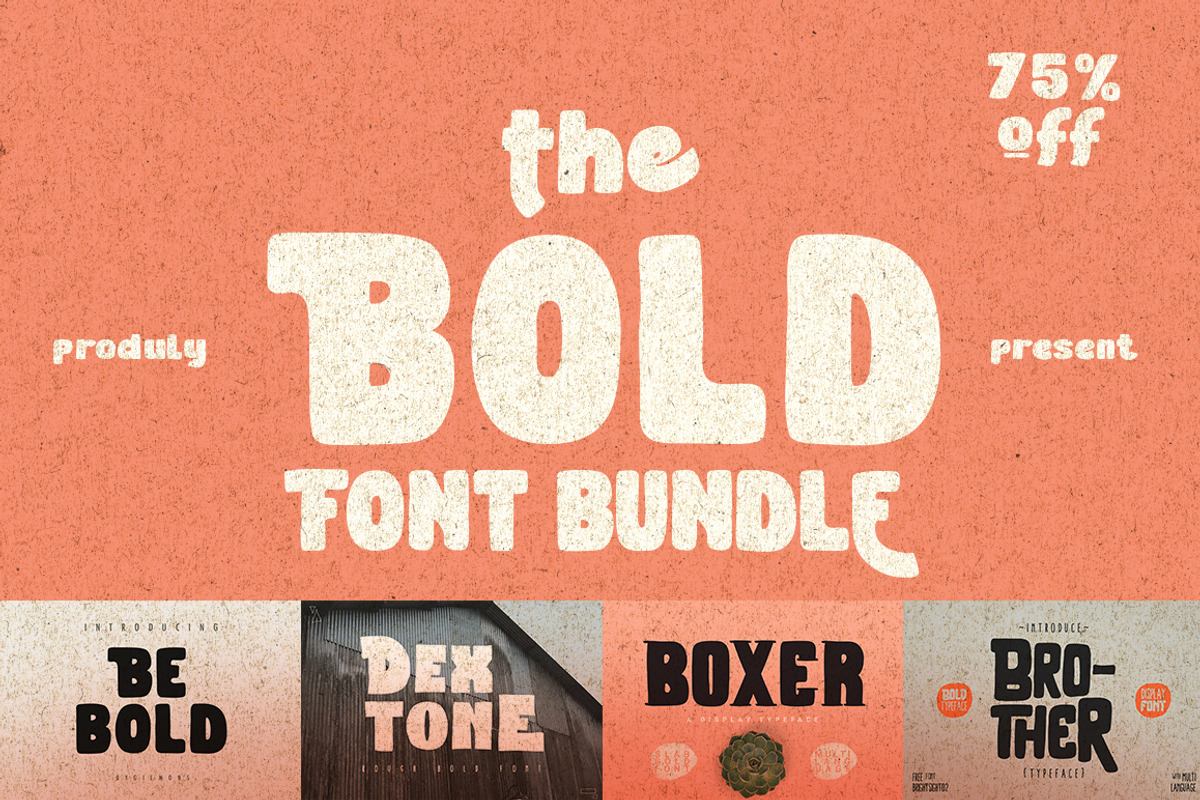
The Bold Font Bundle Free Download is a powerful collection of bold and eye-catching typefaces designed to make a statement in any design. Featuring a variety of font styles, including sans-serifs, display fonts, and script fonts, this bundle is perfect for creating logos, branding, posters, headlines, social media content, and more.
With a range of weights and styles, The Bold Font Bundle offers versatility, allowing you to create both impactful and creative designs. Whether you're working on a modern, minimalist project or a vibrant, attention-grabbing campaign, this bundle has the fonts you need to make your design stand out.